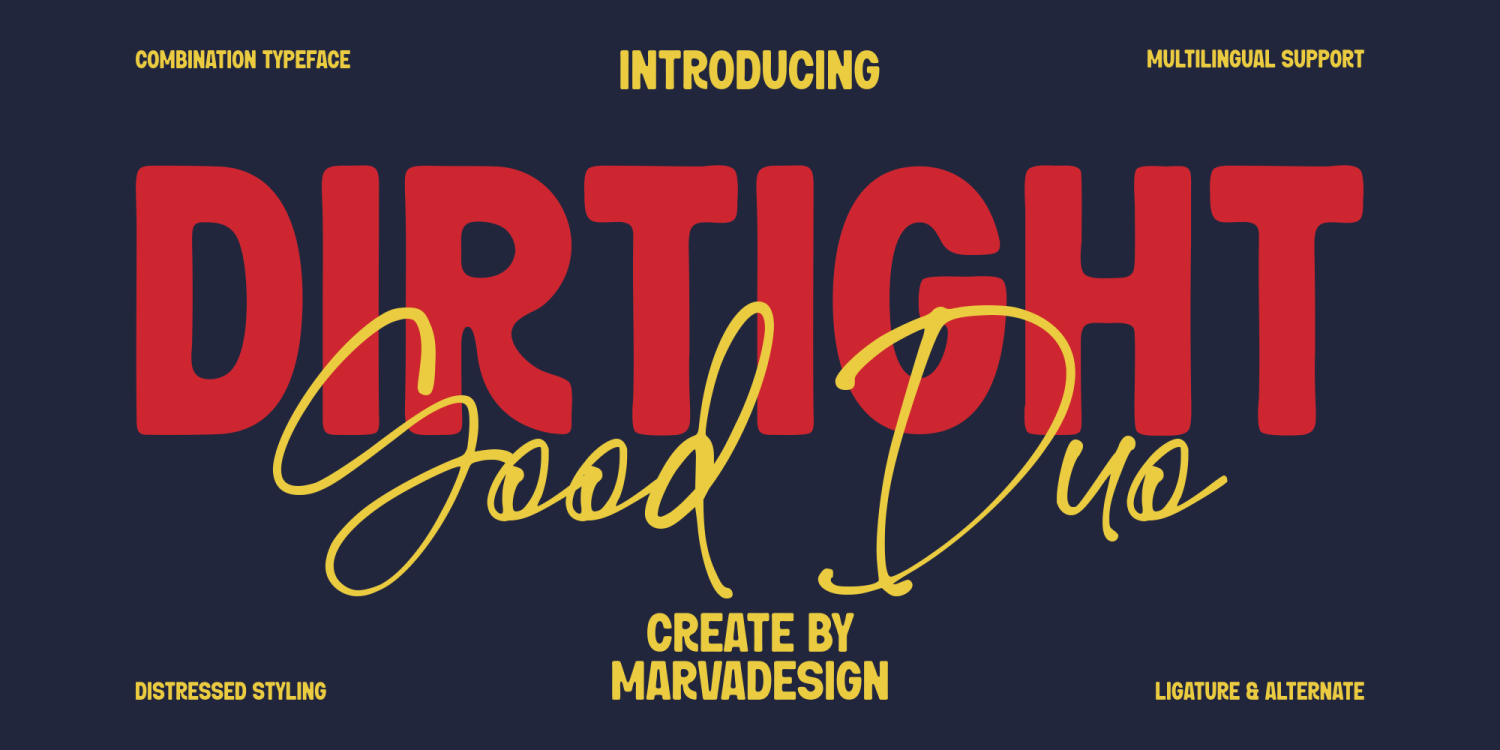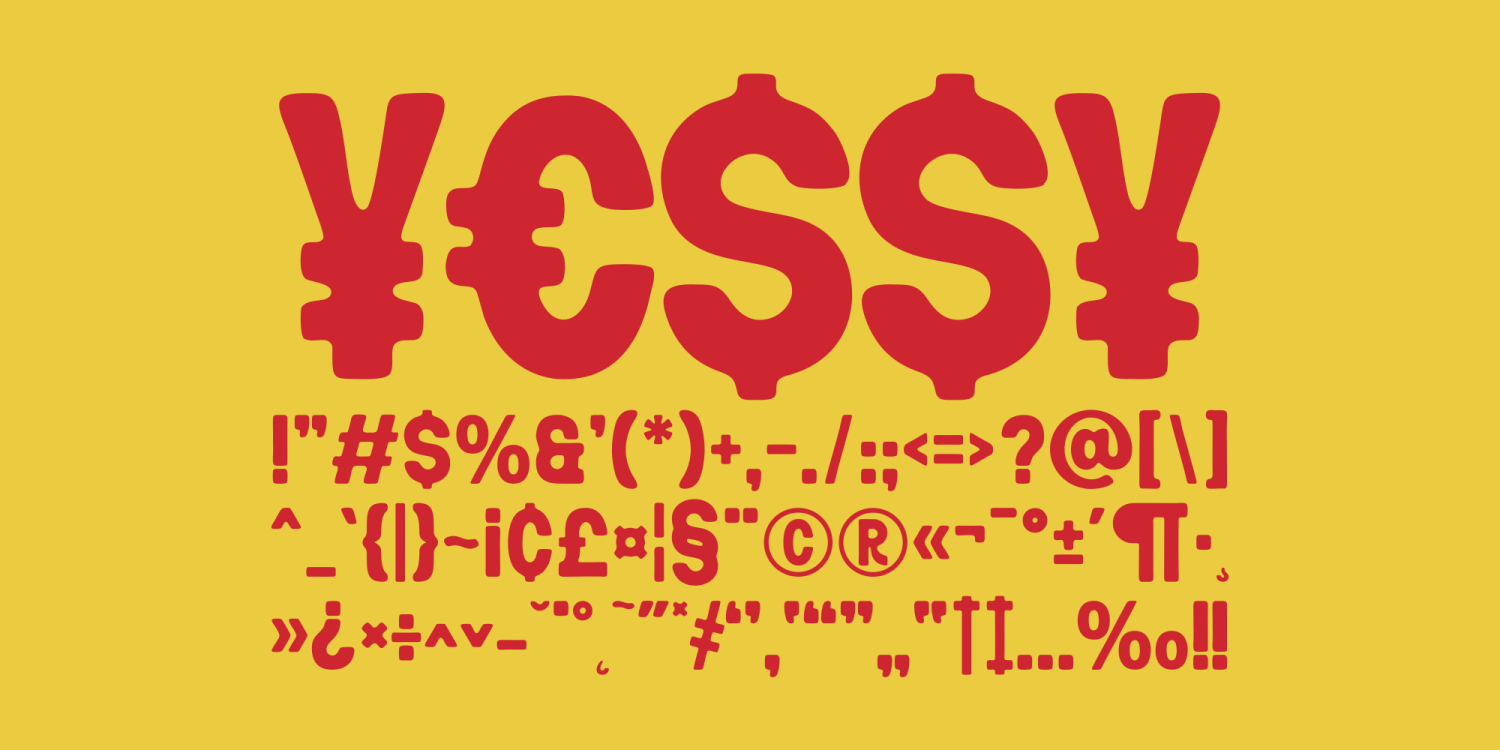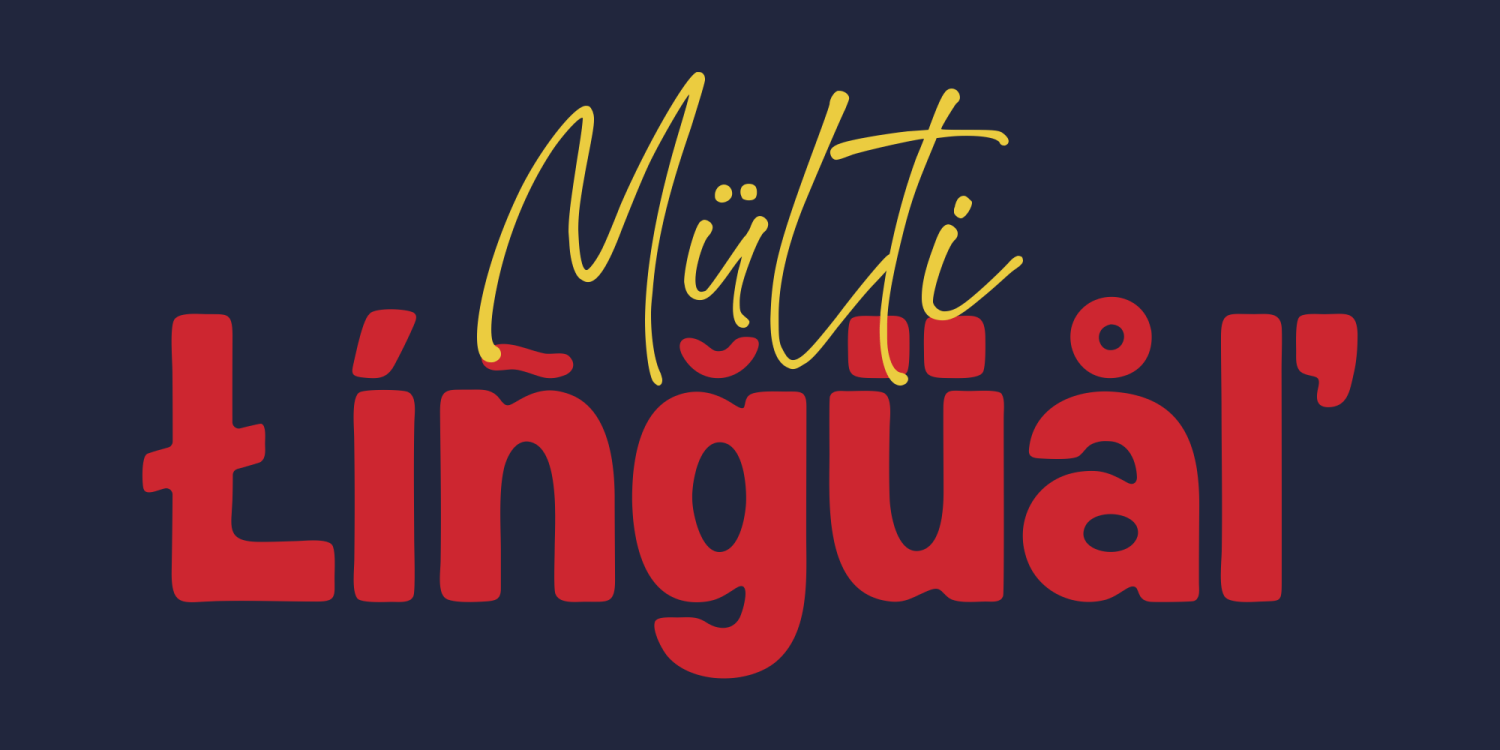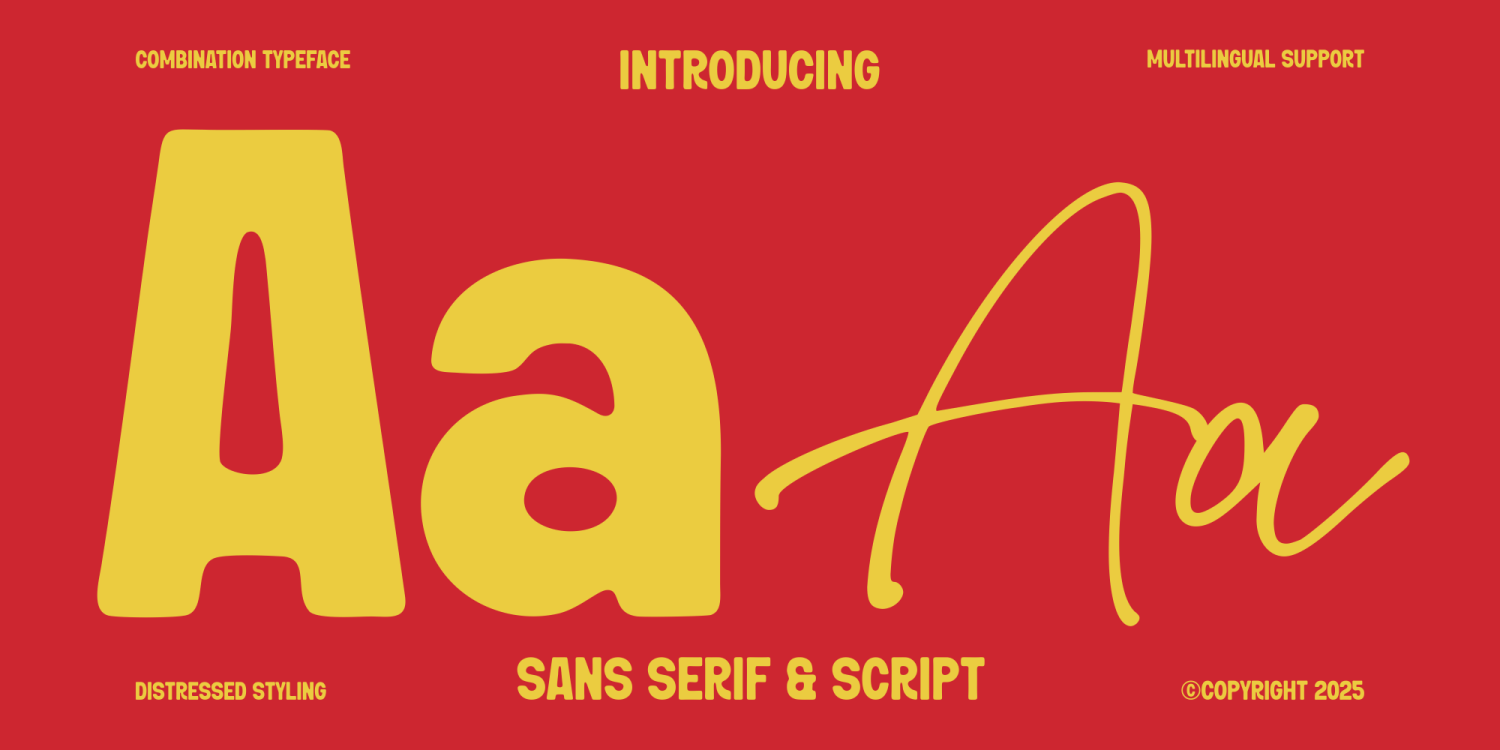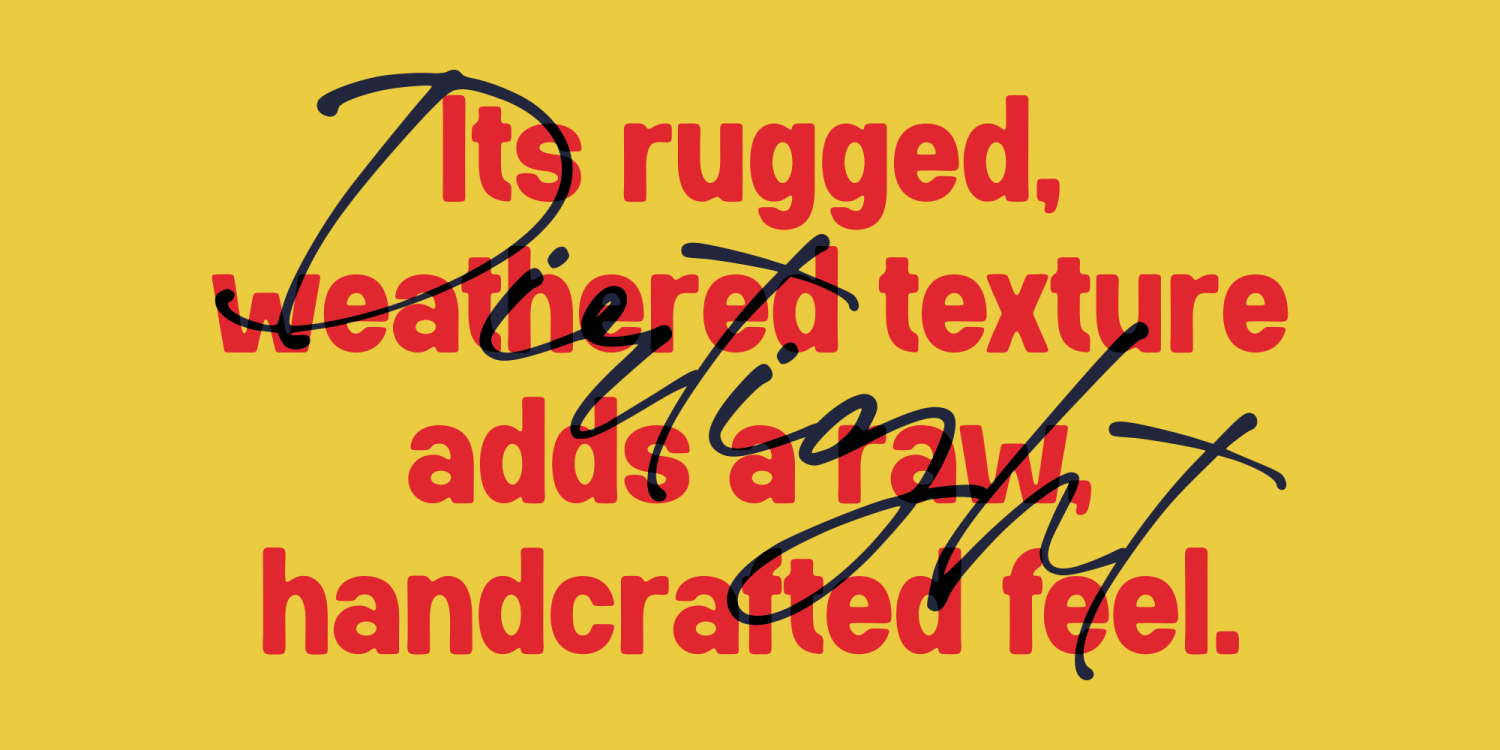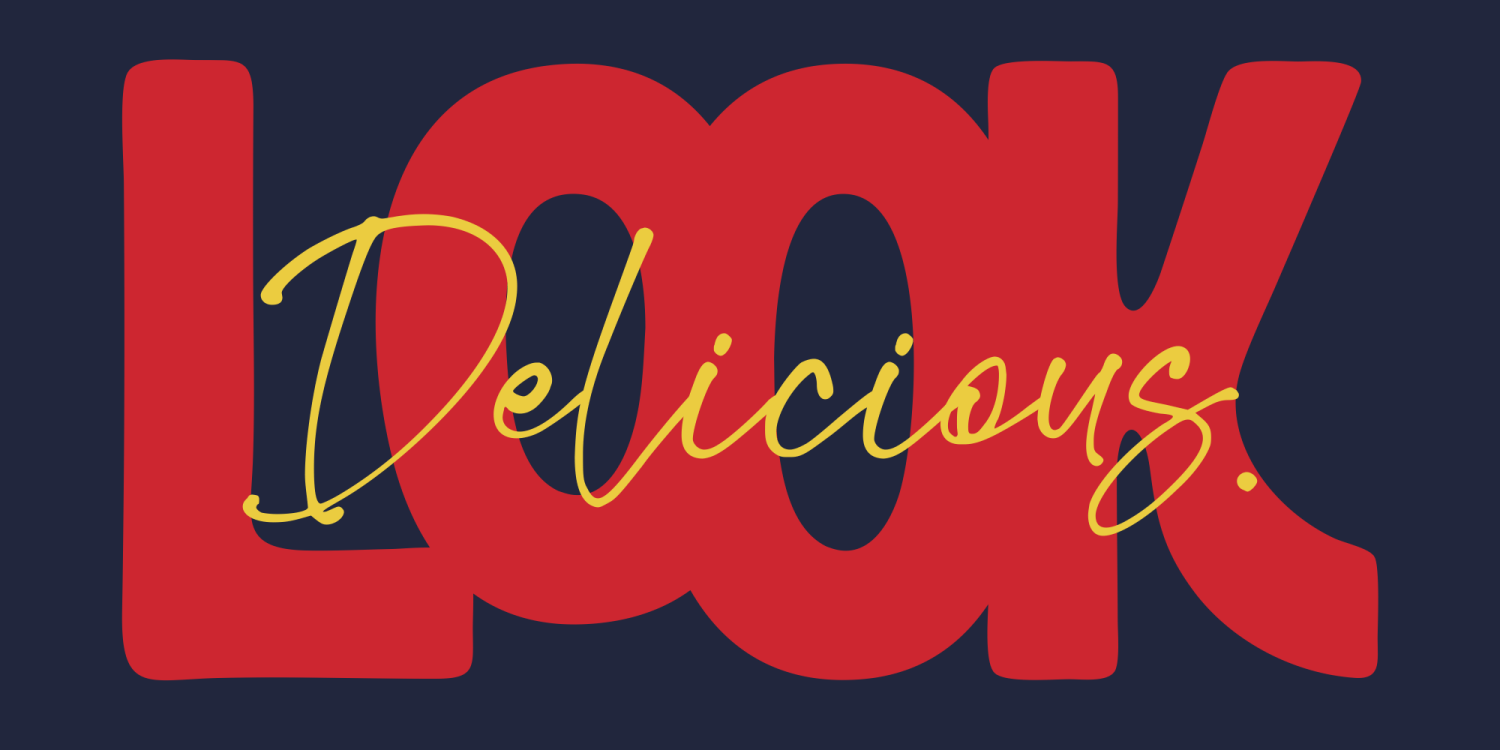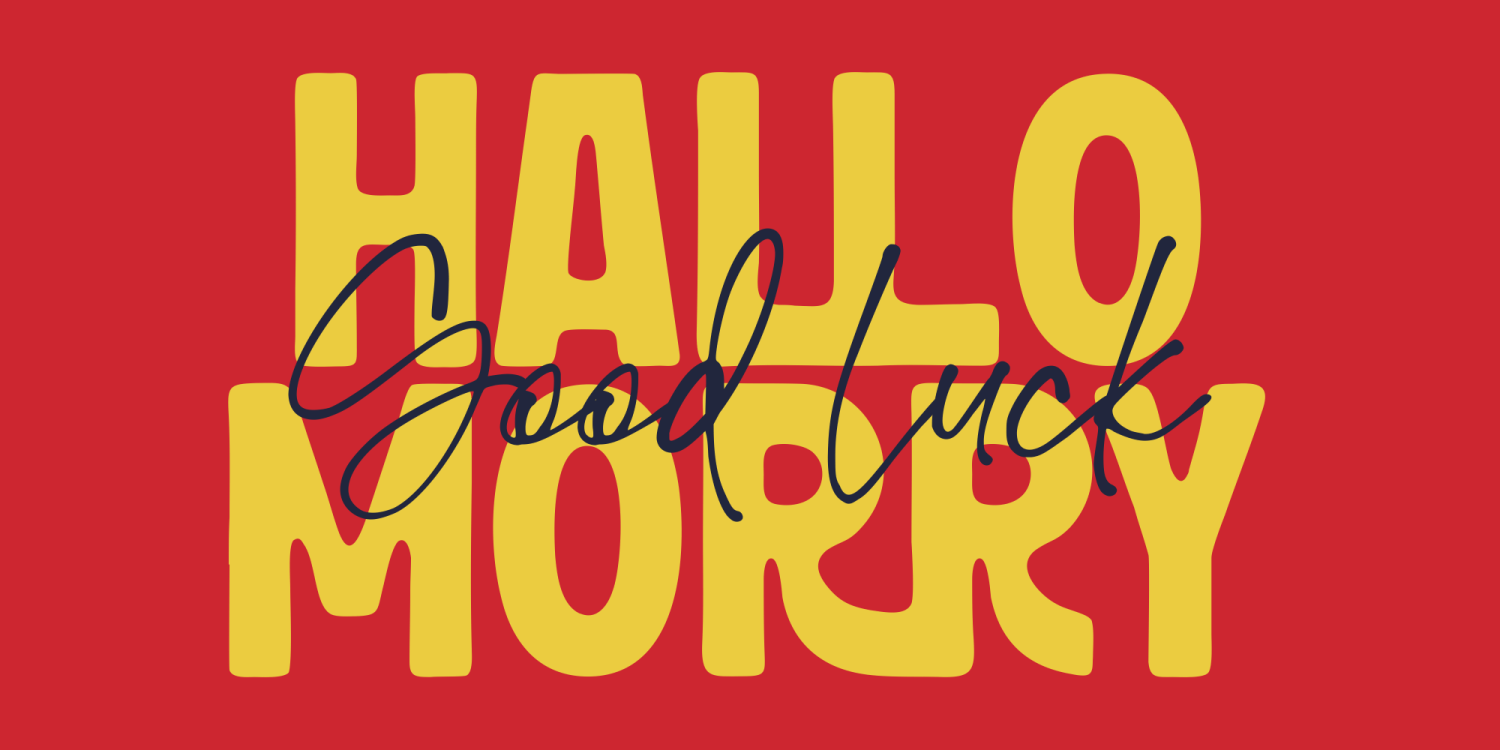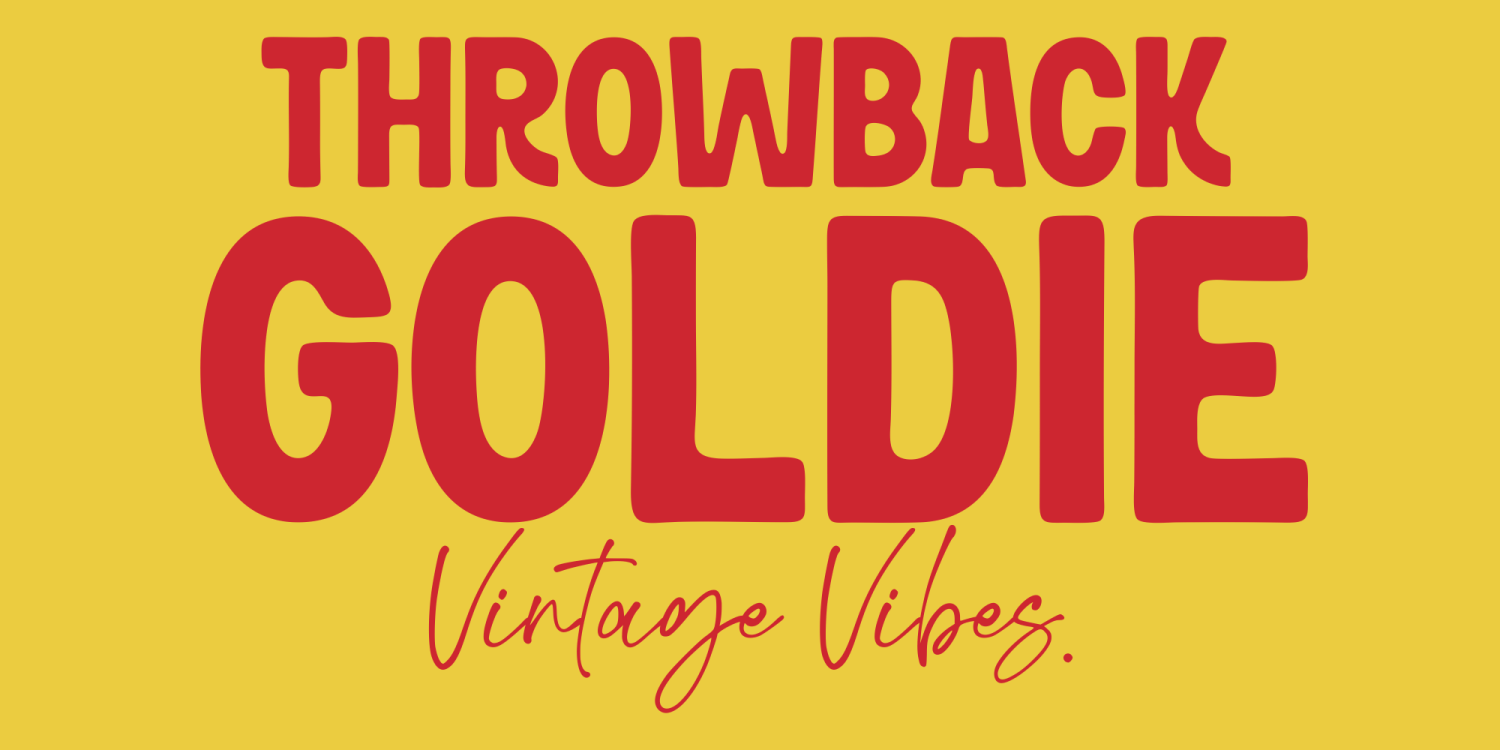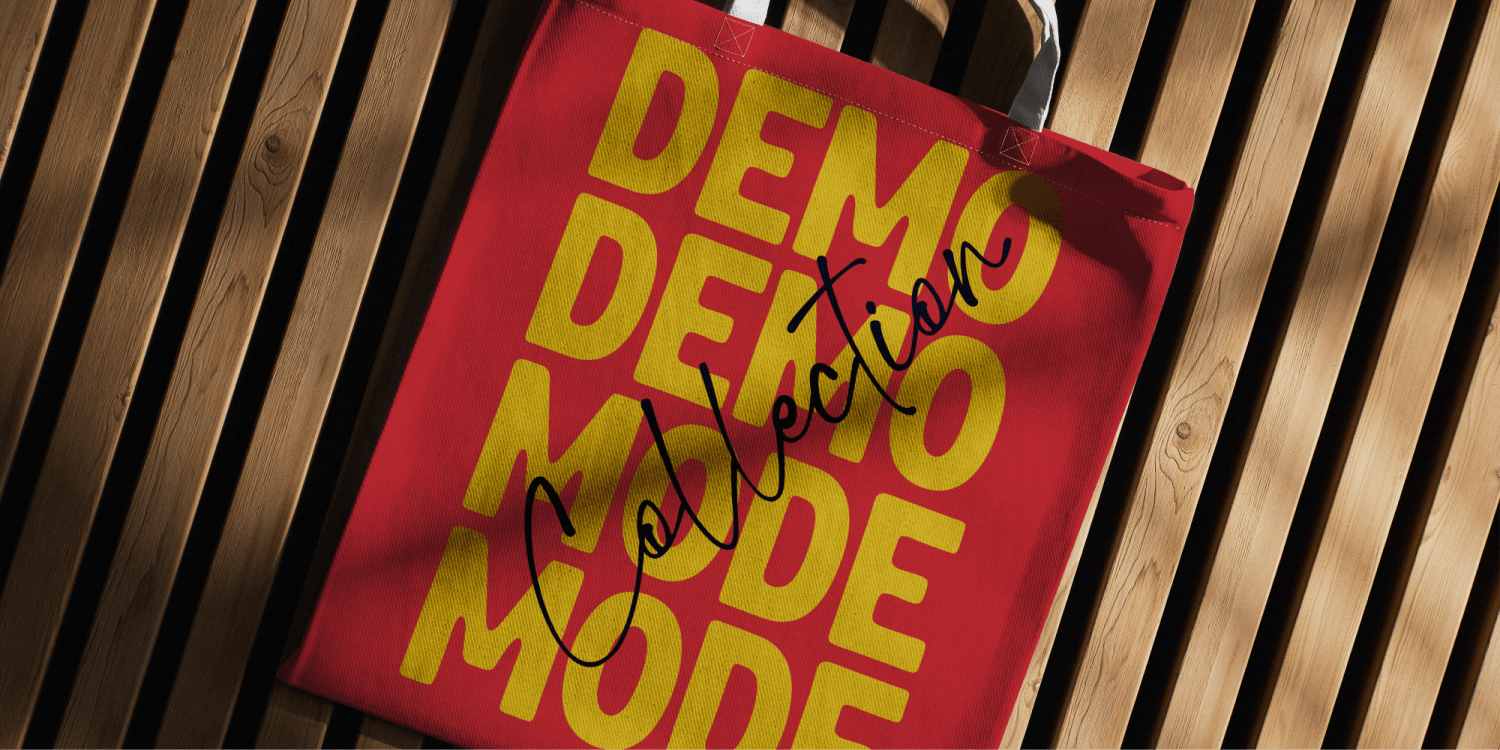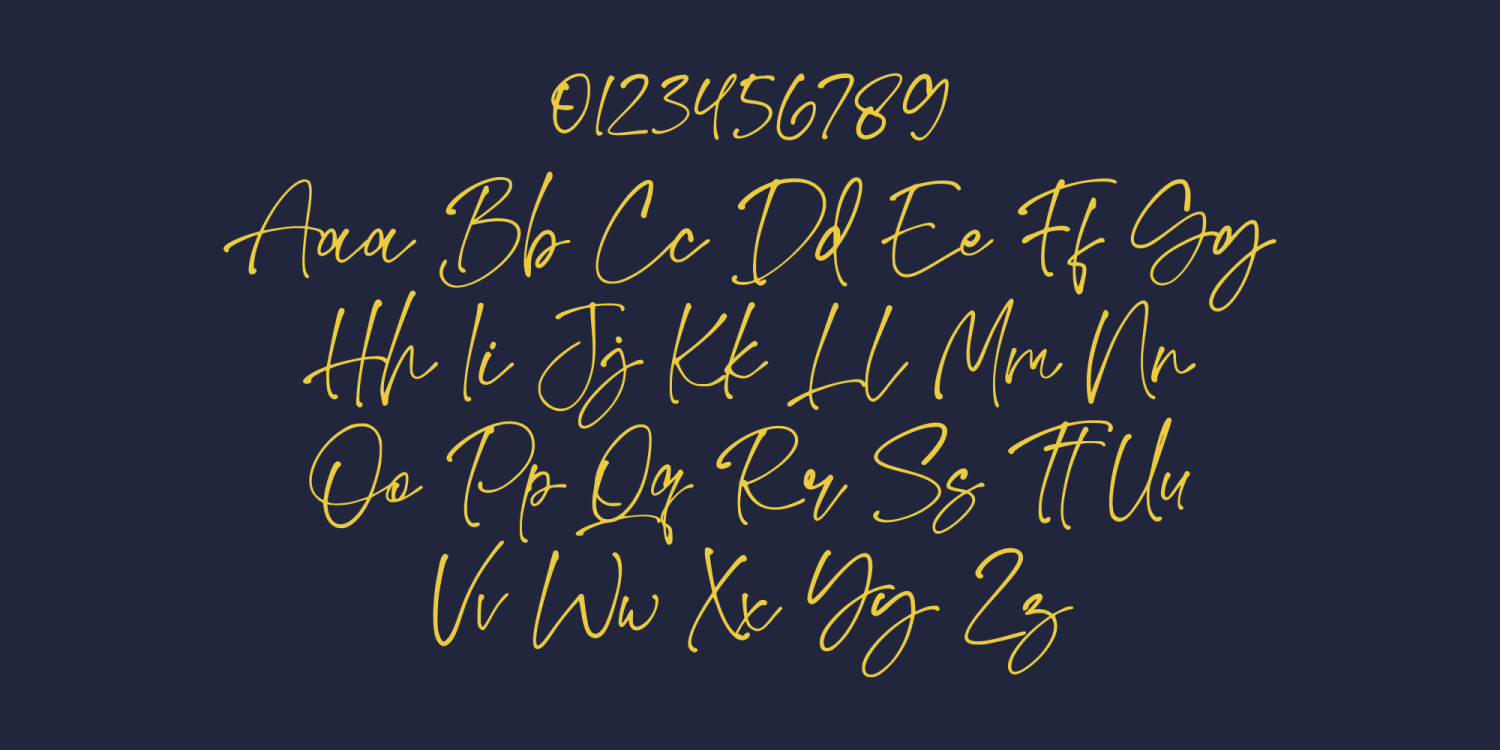
Dirtight
Font Family by Marvadesign
Introducing New Brand Typeface Dirtight is a versatile font that features two distinct styles: Sans Serif and Script. It embodies a retro distressed aesthetic, delivering a raw and authentic vibe reminiscent of handwritten lettering from the past. True to its name, Dirtight has a gritty, weathered appearance, making it perfect for designs that need a vintage, handcrafted touch with a slightly (dirty) edge.